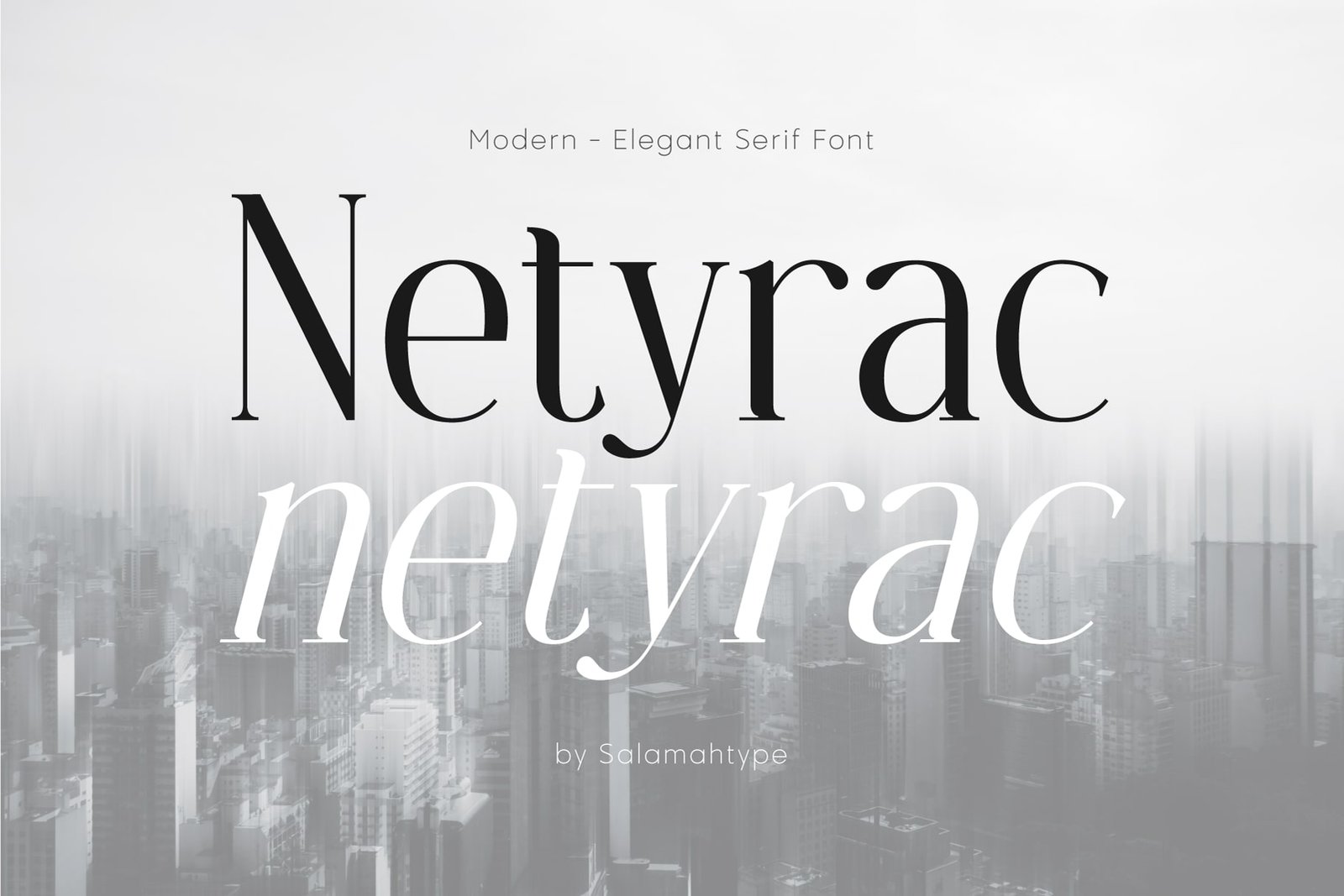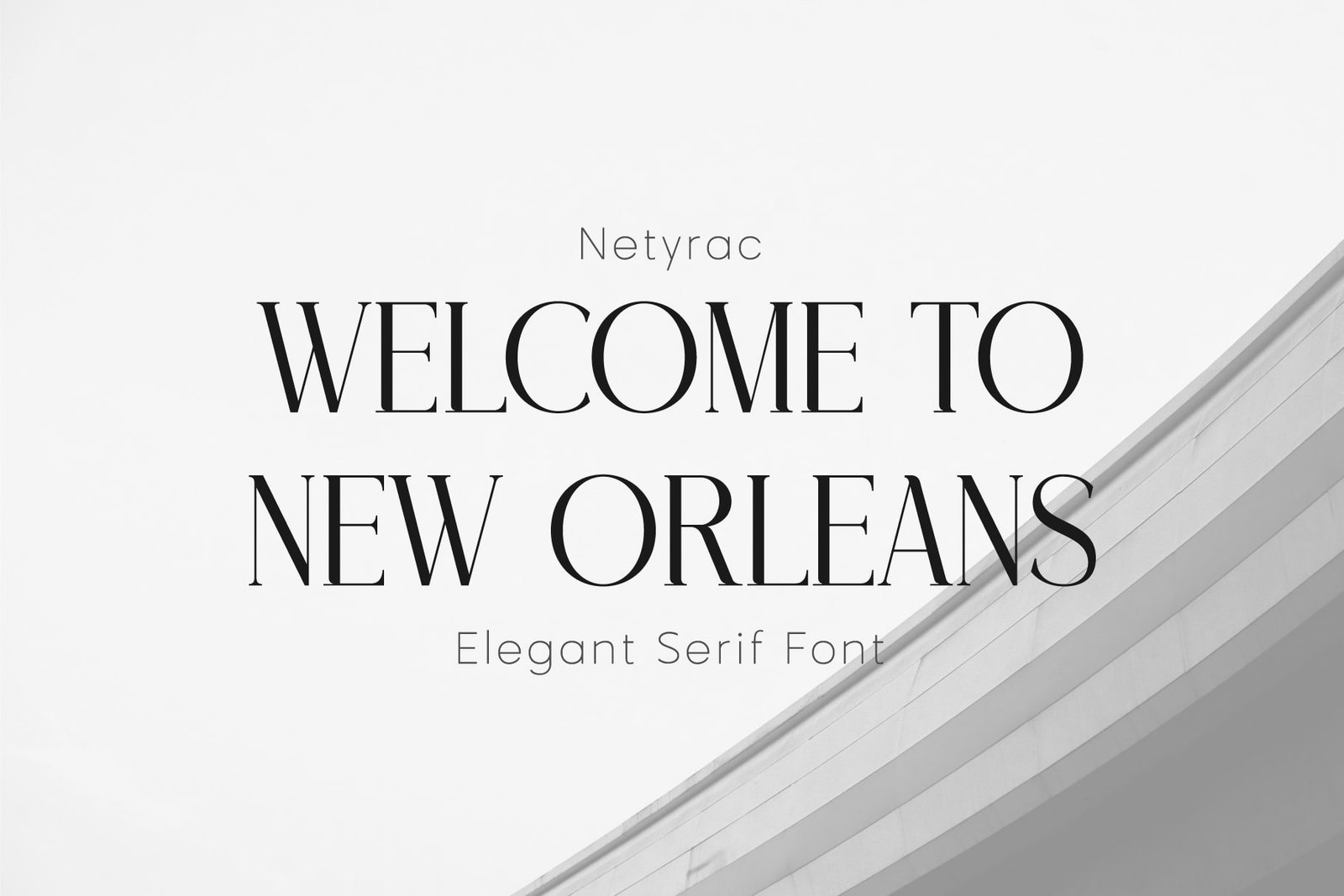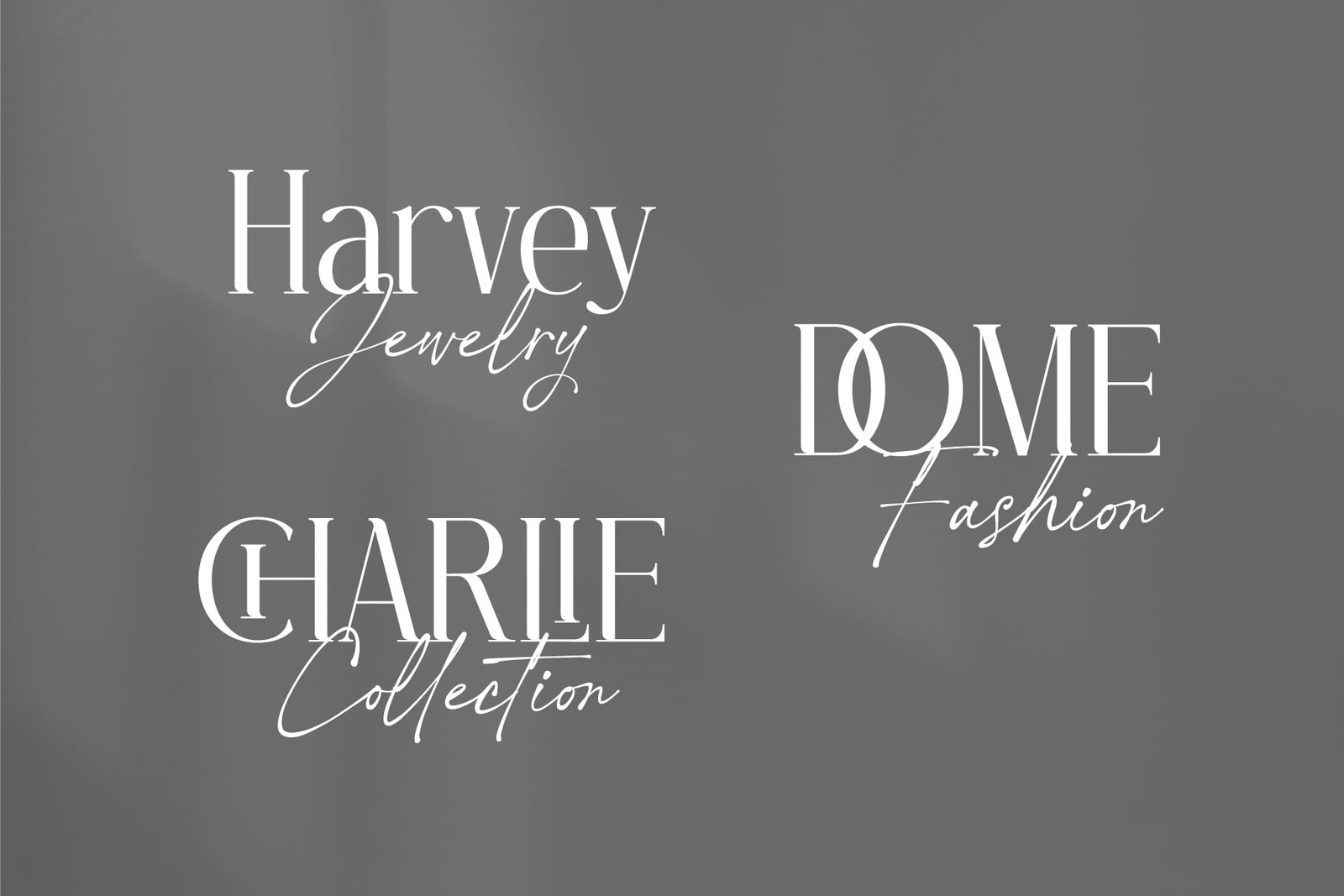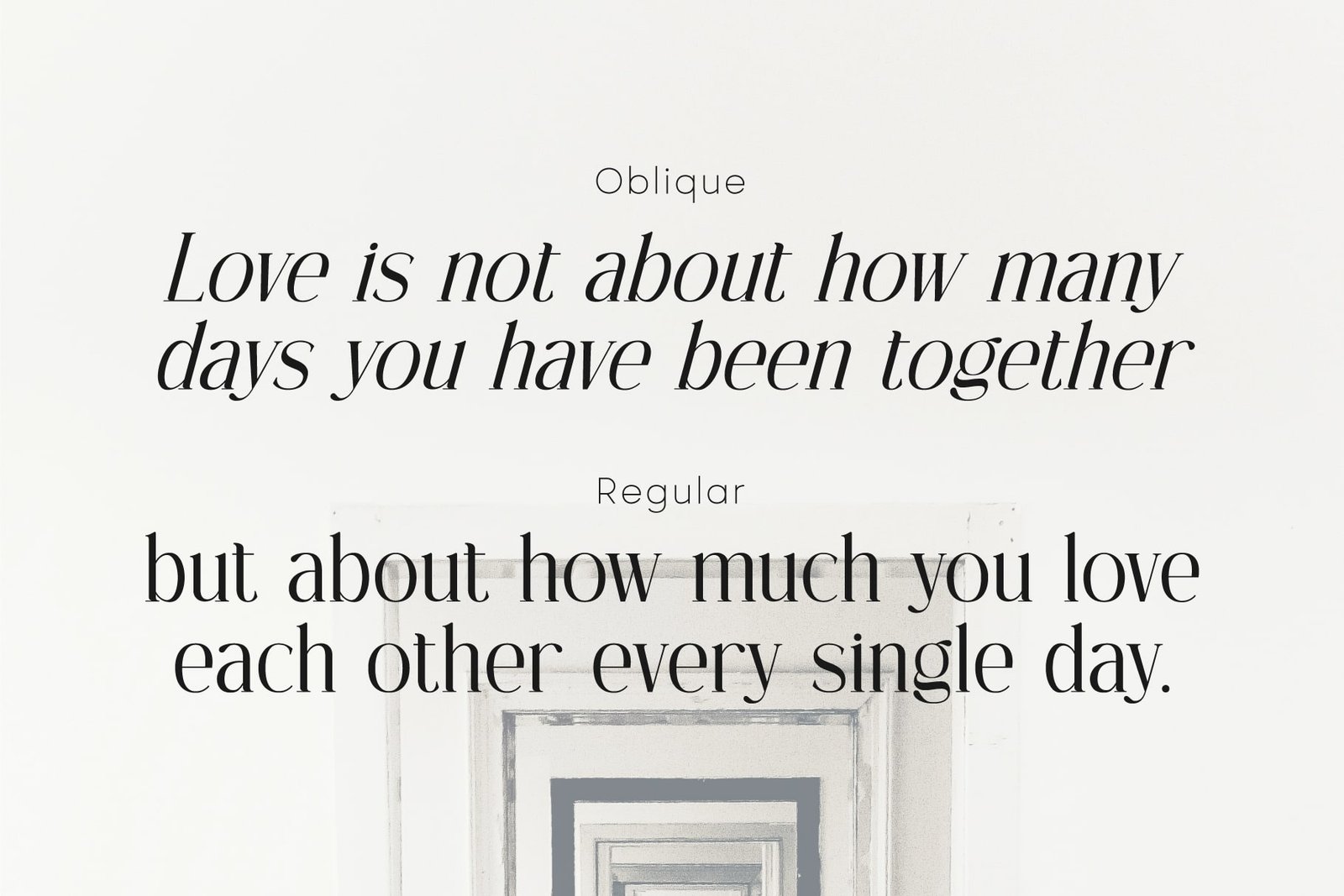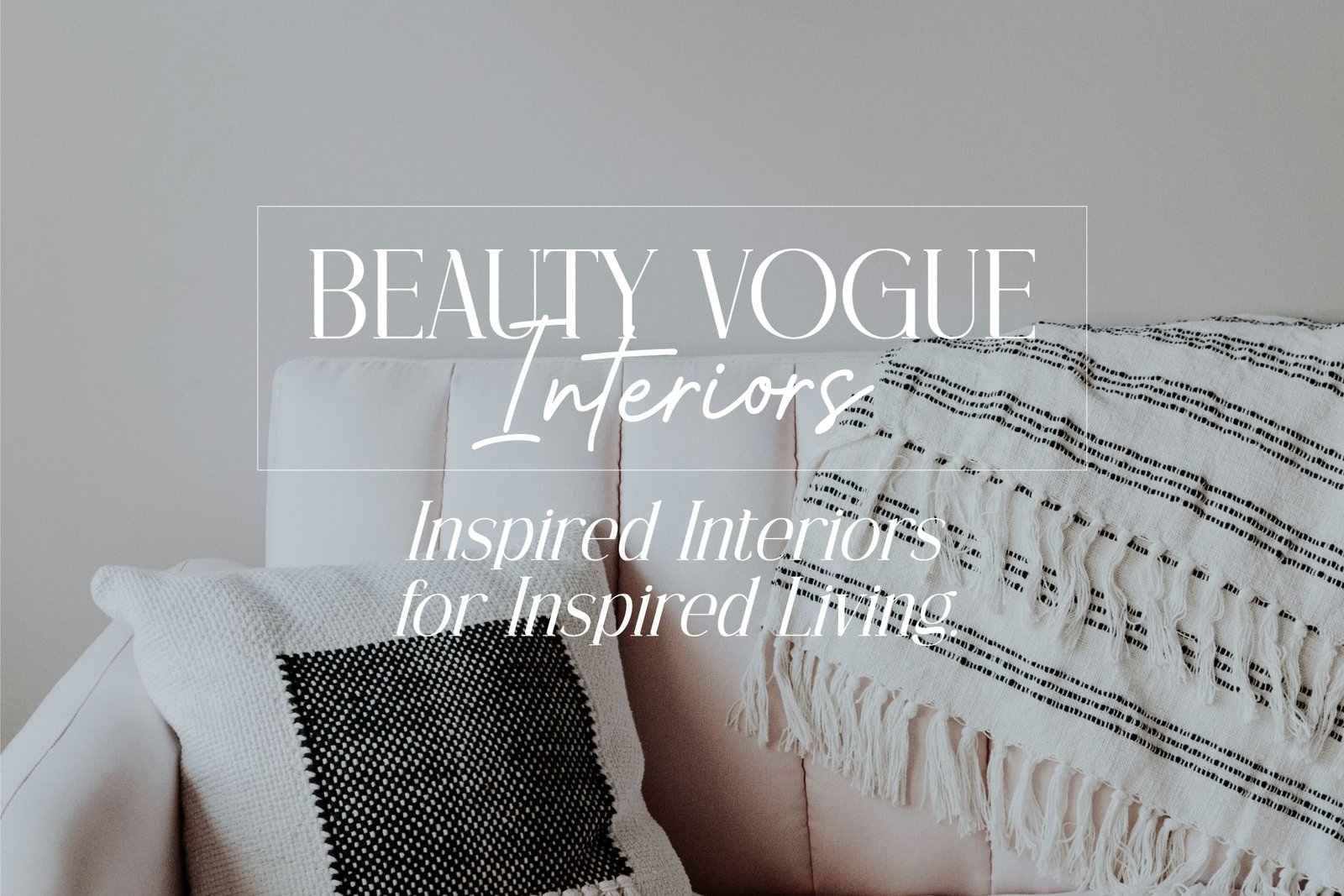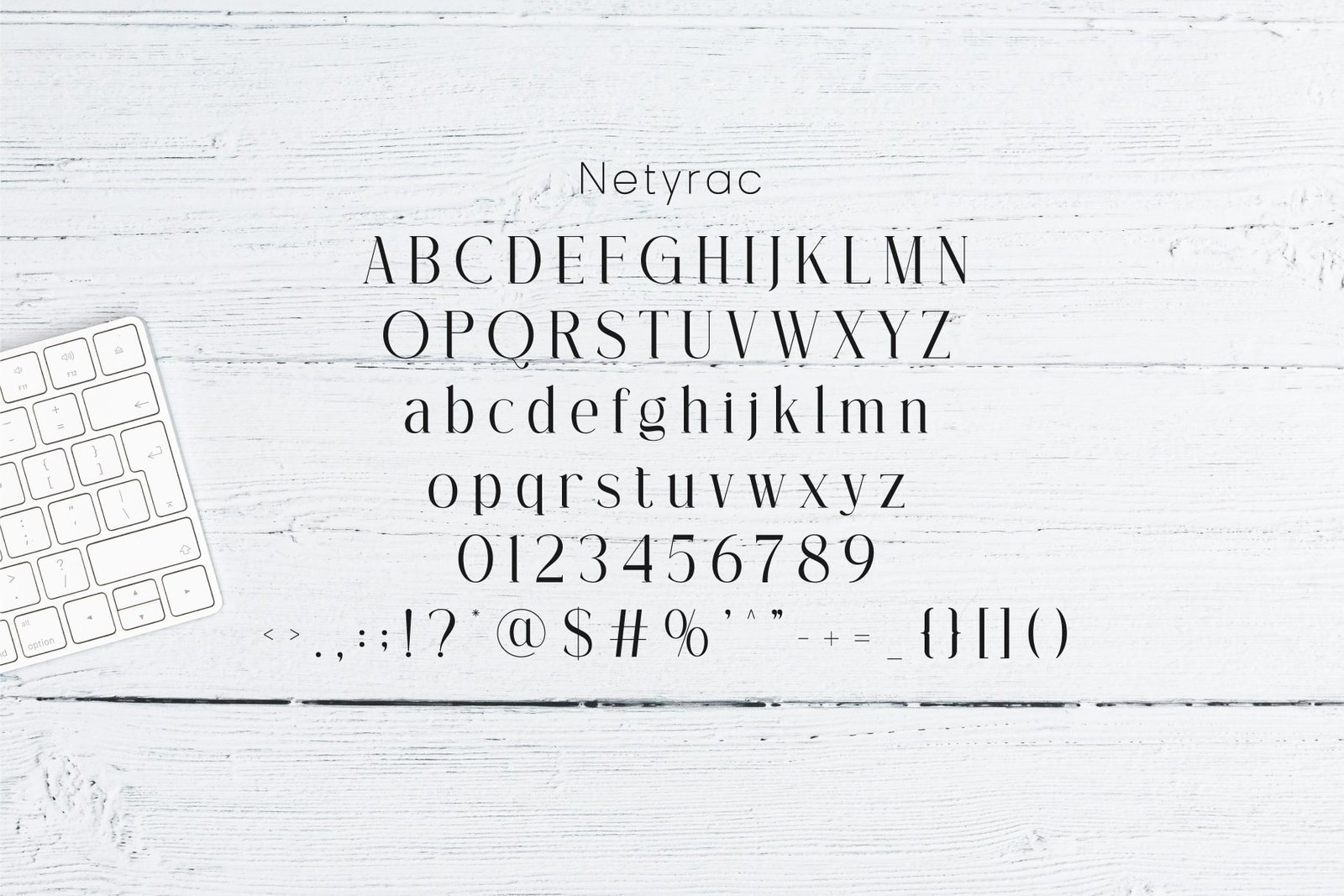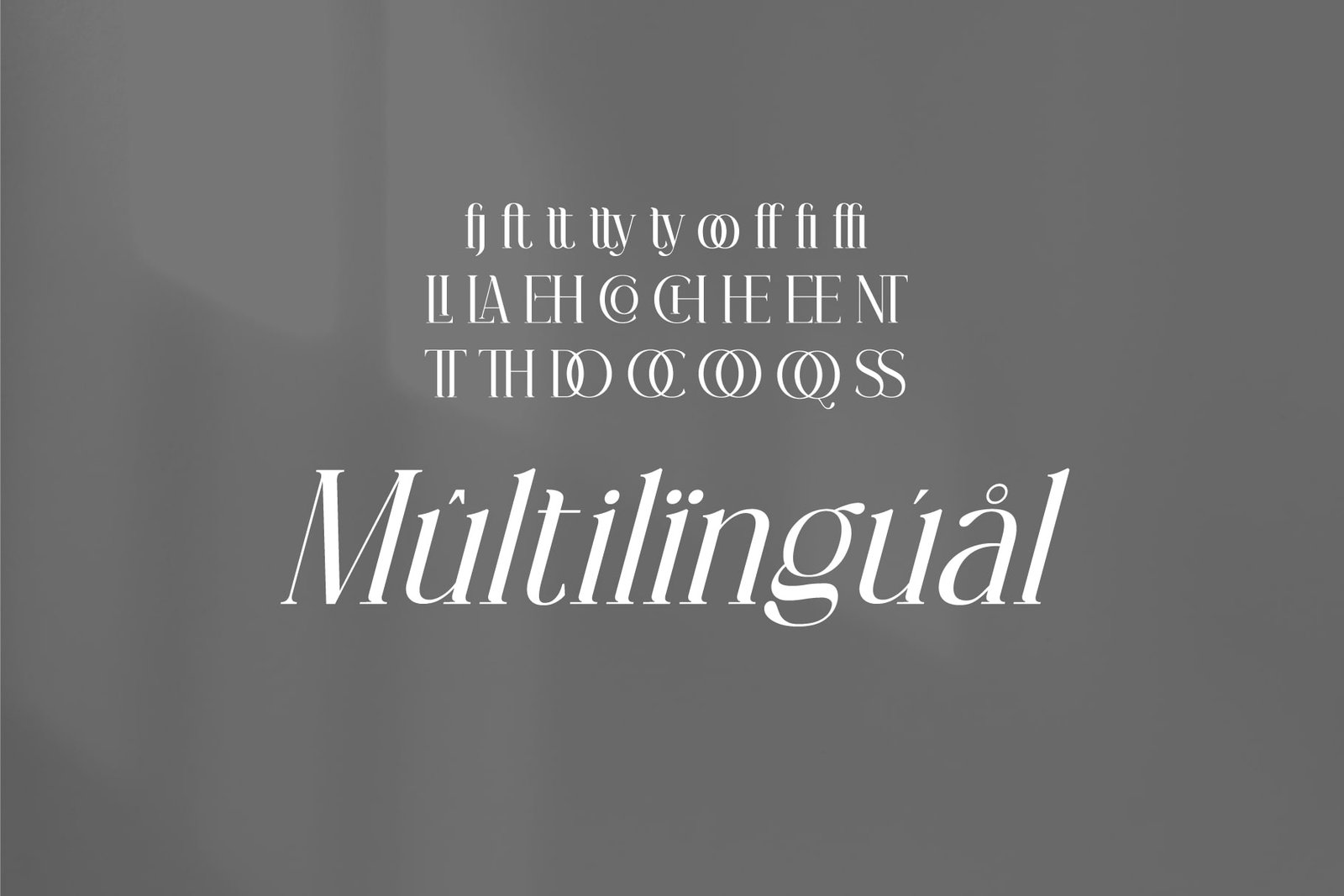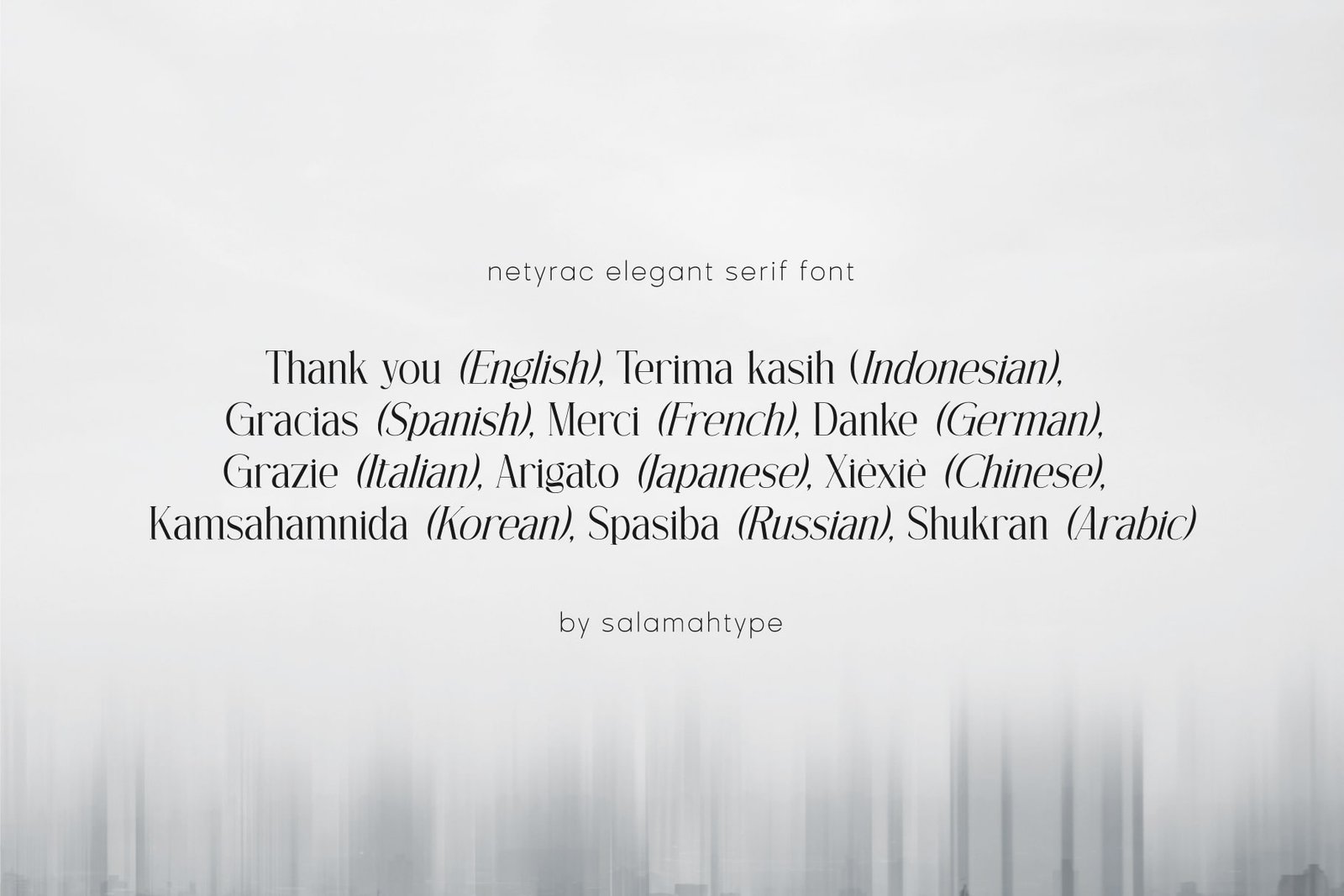
- Netyrac – Elegant Font
Netyrac
Netyrac - Oblique
Netyrac is a sophisticated serif font with an elegant and minimalist look, perfect for branding, logos, posters, ads, and more. It comes in two styles: Regular and Oblique, allowing you to create the perfect font combination for your designs. With multilingual support, Netyrac brings versatility and style to any project.
- Uppercase Lowercase
- Regular and Oblique Styles
- Symbol and Punctuation
- Alternates and Ligatures
- Multilingual Support